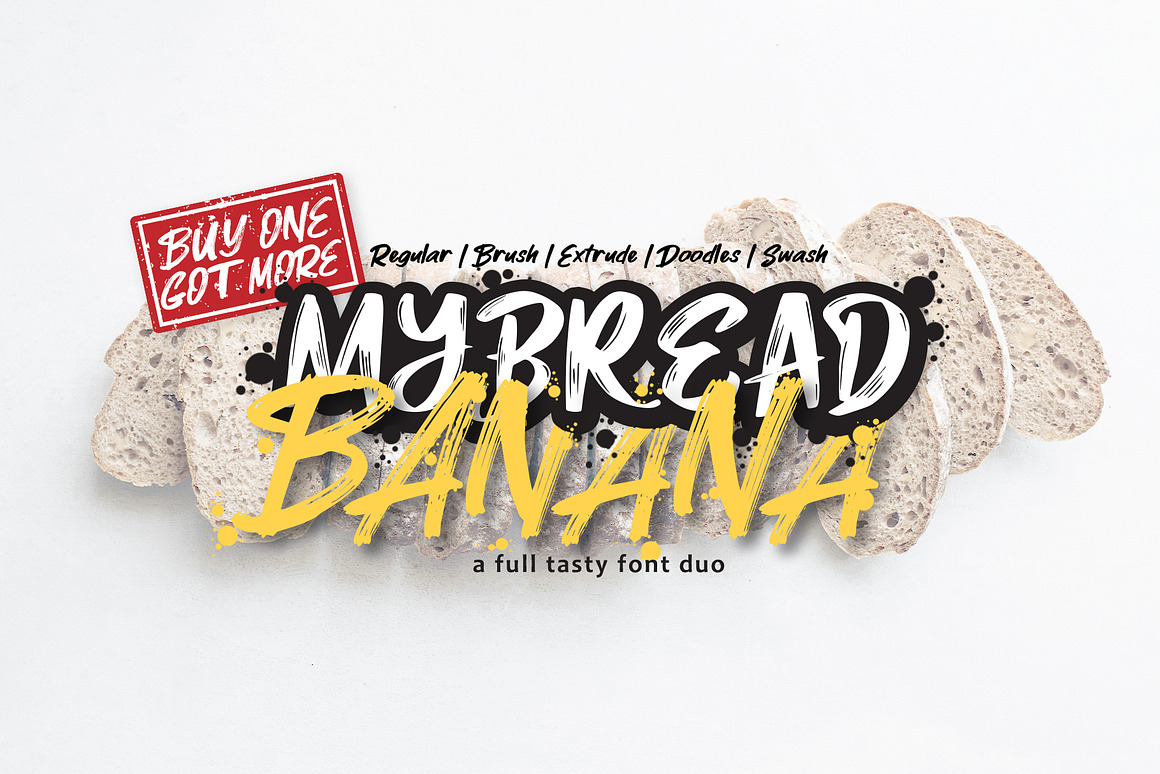
MyBread Banana Font Duo
MyBread Banana Font Duo is perfect for artisan bakery branding, tropical cafe signage, organic food packaging, healthy breakfast campaigns, fruit smoothie shop logos, natural product labels, farm-to-table restaurant menus, wholesome family branding, kitchen supply merchandise, and fresh market advertising.
What makes MyBread Banana Font Duo so exciting is its delightful ability to combine the warm comfort of freshly baked bread with the tropical sweetness of ripe bananas through perfectly paired letterforms that create irresistible visual harmony. This charming font duo captures the essence of wholesome goodness and natural sweetness with complementary typefaces that work together like the perfect recipe, balancing hearty craftsmanship with playful freshness. The fonts' organic design elements perfectly embody themes of natural nutrition, artisan quality, and family warmth, making them indispensable choices for brands celebrating wholesome ingredients and homemade goodness.
The complementary nature of MyBread Banana Font Duo makes it particularly suitable for food businesses emphasizing natural ingredients and artisan preparation methods. The paired fonts maintain excellent readability while creating the inviting atmosphere that appeals to customers seeking authentic, wholesome food experiences and family-friendly dining environments.
Food marketing professionals recognize how MyBread Banana Font Duo transforms ordinary promotional text into appetizing invitations to wholesome culinary experiences. The font duo's organic character sets include special food symbols and natural elements that enhance the overall fresh atmosphere of any food-related project.
For creative professionals serving bakeries, organic food brands, and healthy lifestyle companies, MyBread Banana Font Duo serves as the perfect foundation for establishing memorable visual identities that capture the essential qualities of natural goodness, artisan quality, and family warmth that define authentic wholesome food experiences.